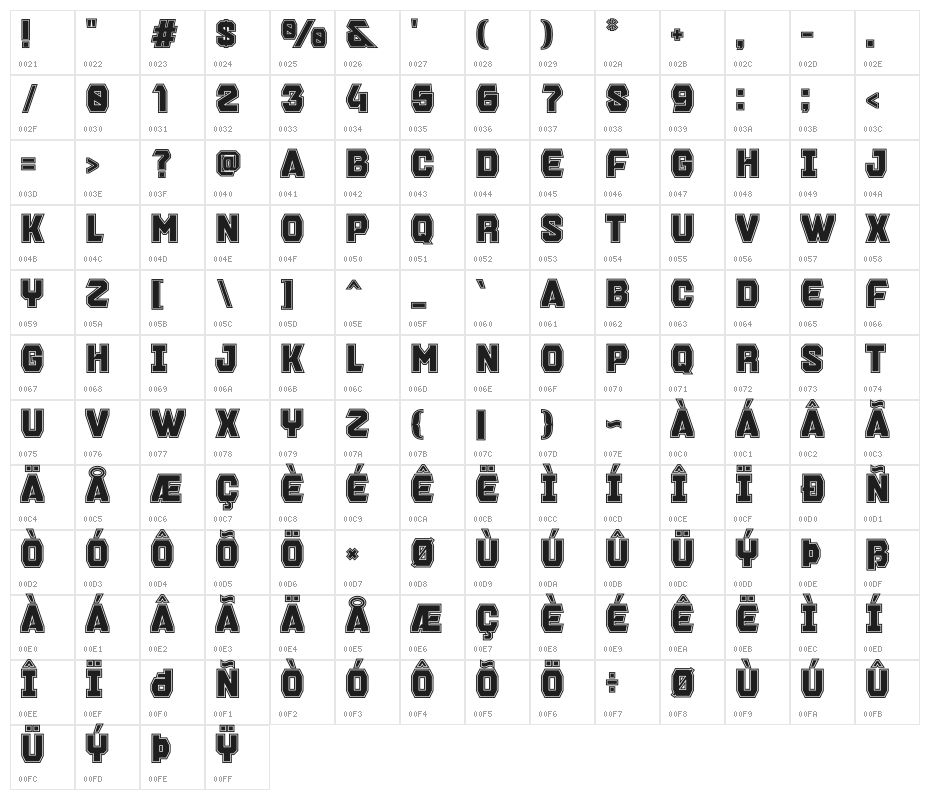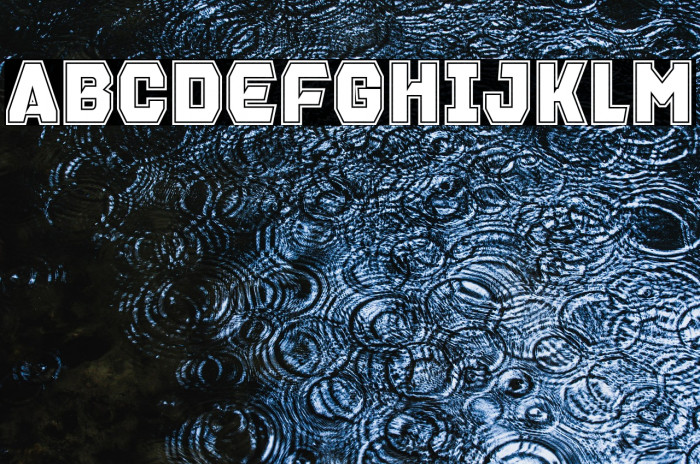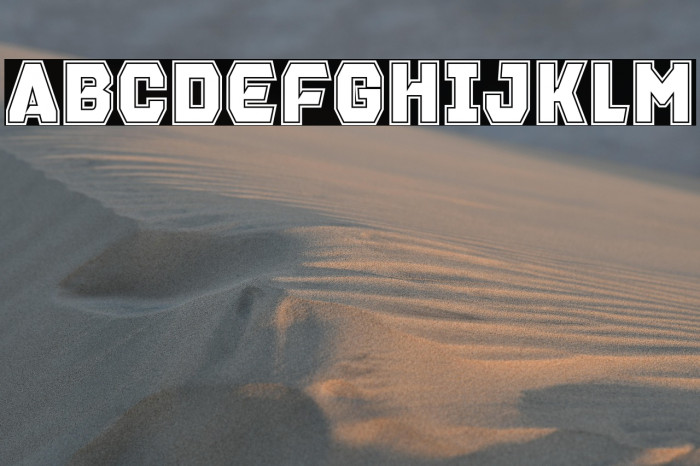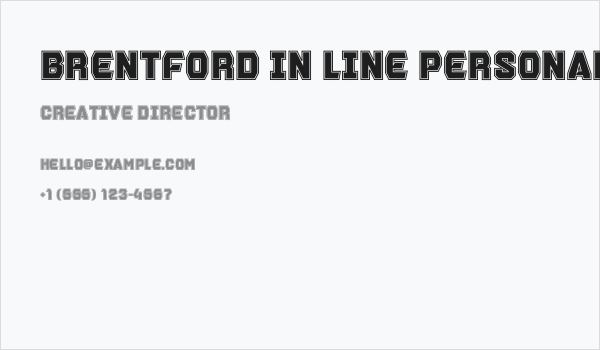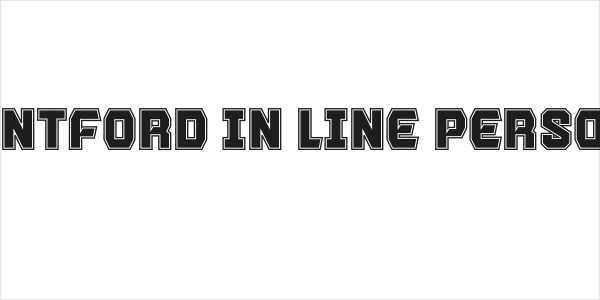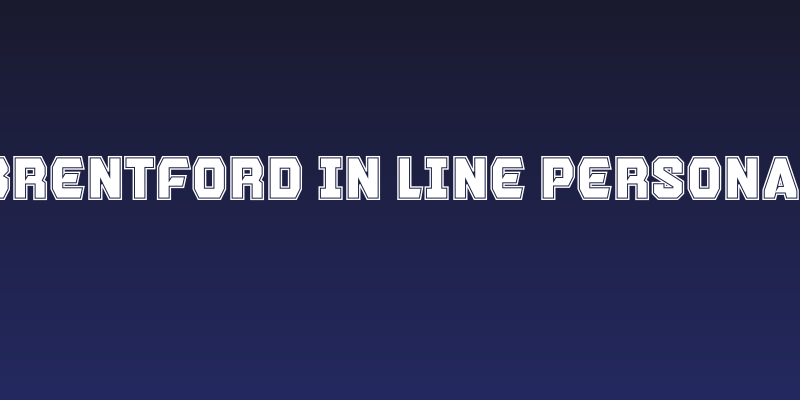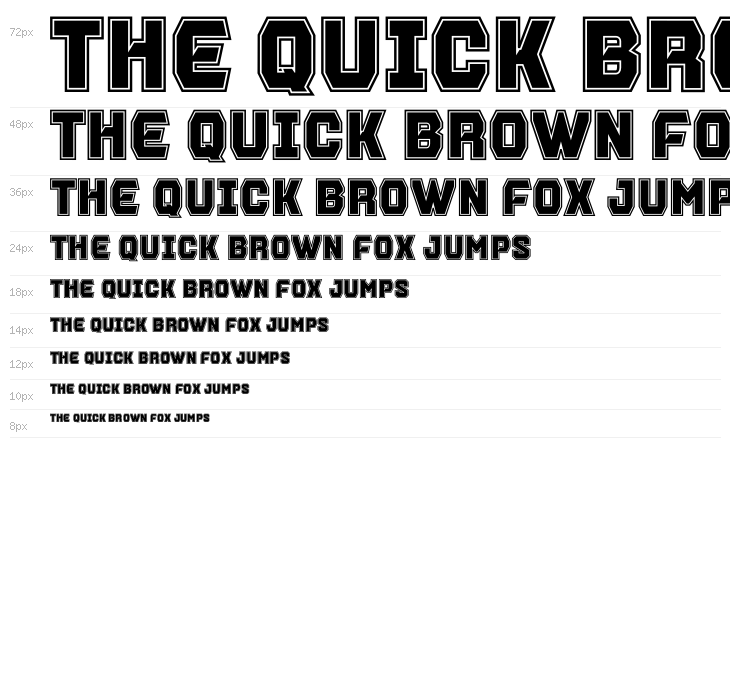
Brentford In Line Personal Font
Brentford In Line Personal Description
This font features a bold, geometric design with a distinct inline style that adds depth and dimension. The characters are uppercase and numerals, with a strong, impactful presence. The inline detail creates a layered effect, enhancing the visual interest and making it suitable for attention-grabbing designs. The font's structure is clean and precise, with sharp angles and consistent line thickness, contributing to a modern and dynamic appearance. It is well-suited for projects that require a bold statement, such as posters, headlines, and branding materials.
| Proposed Projects | Ideal for posters, headlines, branding, and any design needing a bold statement. |